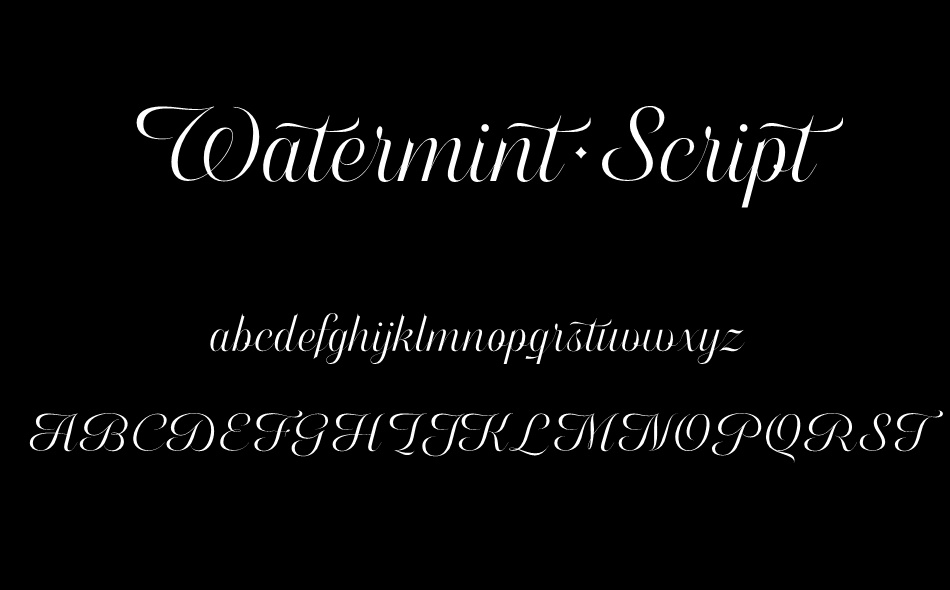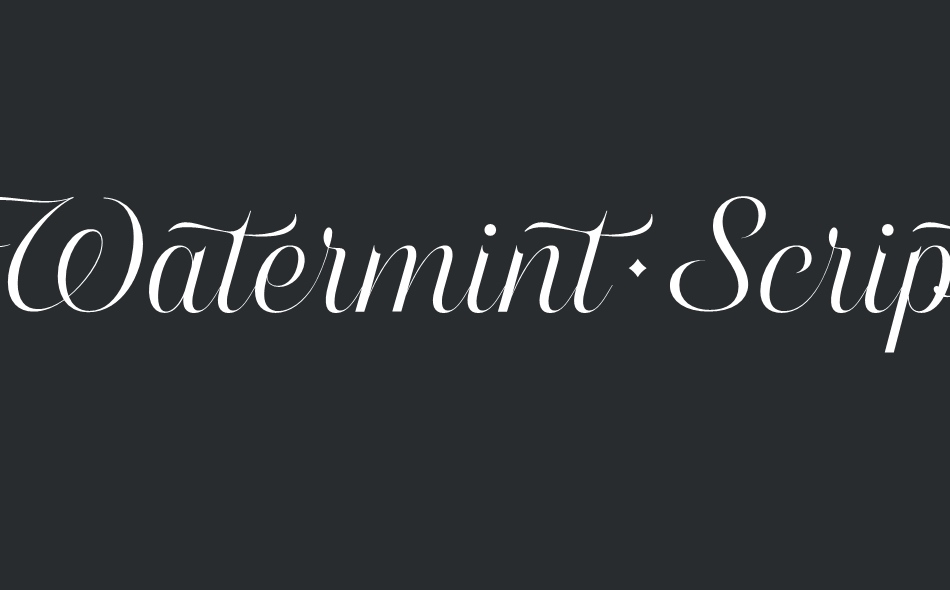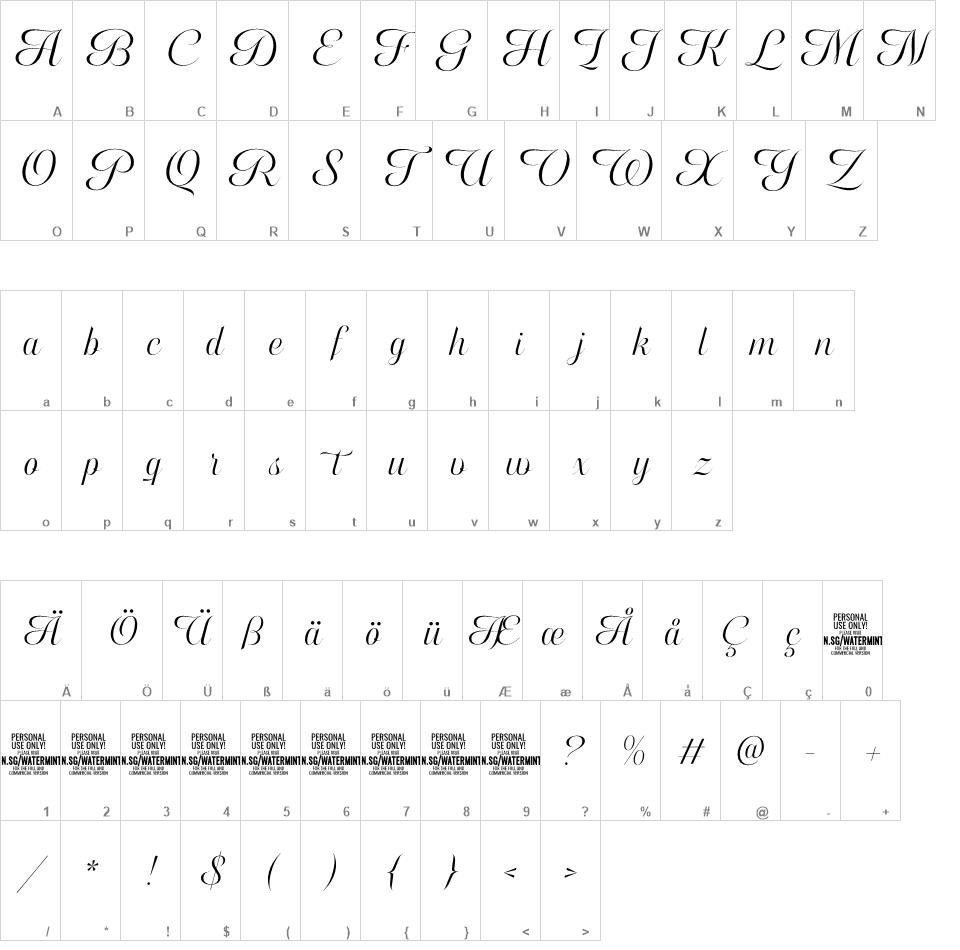
Watermint Script font
Watermint Script is a formal typeface that epitomizes the essence of elegance and sophistication.
Envisioned for formal settings, its calligraphic strokes evoke a sense of classic beauty.
Watermint Script is a formal typeface that epitomizes the essence of elegance and sophistication.
Envisioned for formal settings, its calligraphic strokes evoke a sense of classic beauty, making it an ideal choice for invitations or logotypes that demand a touch of class.
Watermint Script is a harmonious blend of cute and lovely, wrapped in a feminine and romantic design. Its light and fresh appearance breathes life into each word, offering a clean and flawless presentation. The font's perfection lies in its attention to detail, with each character exuding a classy aura that enhances the overall visual experience.
The font is built with advanced OpenType functionality and guaranteed top-notch quality, containing stylistic and contextual alternates, ligatures and more automatic and manual features; all to give you full control and customizability. It has extensive lingual support, covering all Latin-based languages, from North Europa to South Africa, from America to South-East Asia. It contains all characters and symbols you'll ever need, including all punctuation and numbers.
Designed by Mans Greback, Watermint Script is a testament to his commitment to creating fonts that are not just tools of communication, but artworks that enrich the visual landscape.